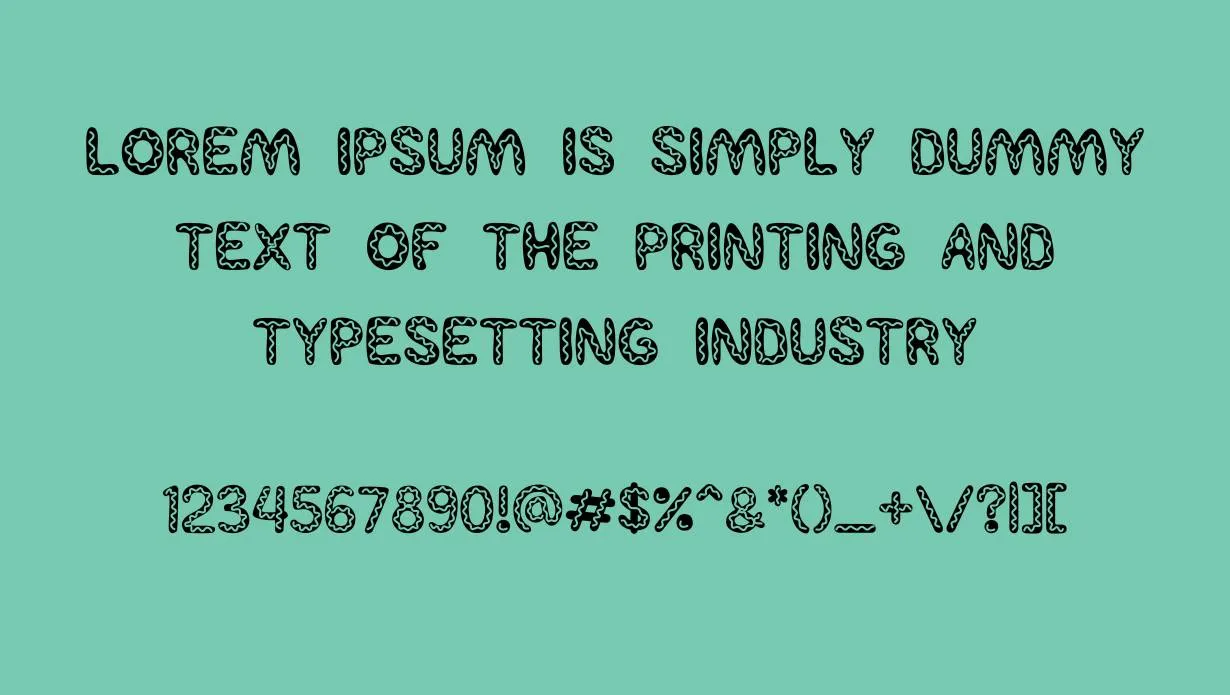
Sweety Donut Font is a playful and decorative typeface that’s often used in children’s books, party invitations, and creative branding.
Sweety Donut Font Family